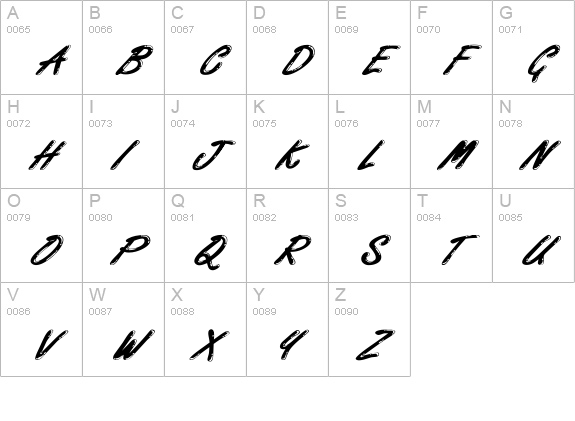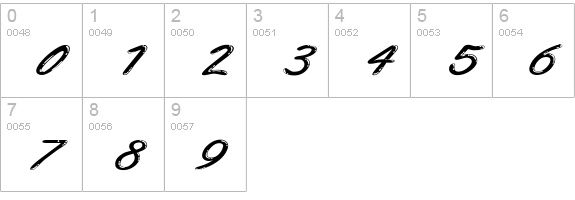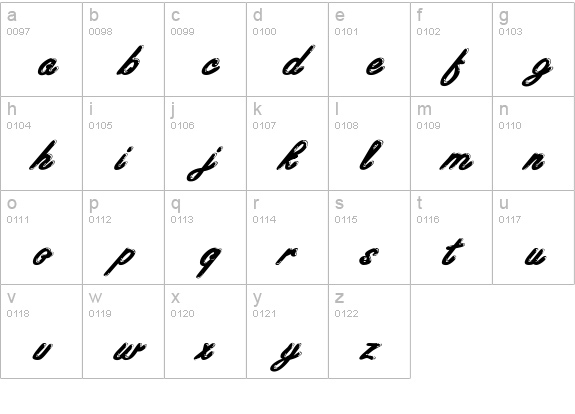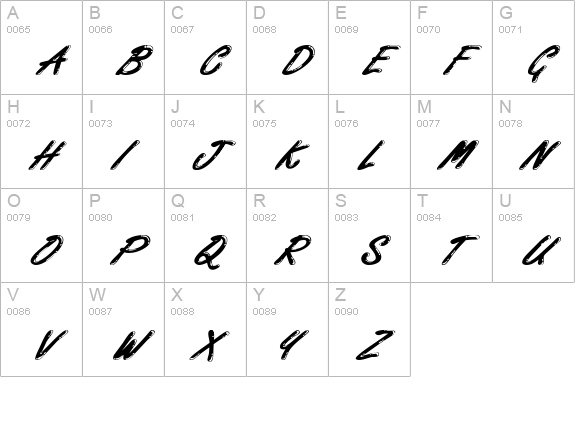
Encino Wide Italic is a distinctive, extended-width, italic variant in the Encino typeface family \xE2\x80\x94 well suited to design and typography projects.
Encino Wide Italic font is a stylish and modern typeface that exudes sophistication and elegance. Its italic design adds a touch of flair and creativity to any project, making it perfect for branding, advertising, and editorial purposes. The wide letterforms create a unique and eye-catching look that commands attention. The Encino Wide Italic font is not only visually striking but also highly versatile, suitable for a wide range of design applications. Whether you're creating a logo, poster, website, or packaging, this font will help you achieve a professional and polished result. Best of all, Encino Wide Italic font is available for free download at FontsMarket.com. This means you can easily access and use this high-quality font in your projects without any cost. Don't miss out on the opportunity to enhance your designs with this beautiful typeface that will surely make a lasting impression.